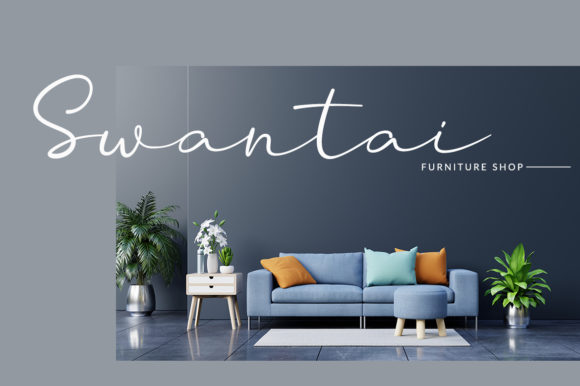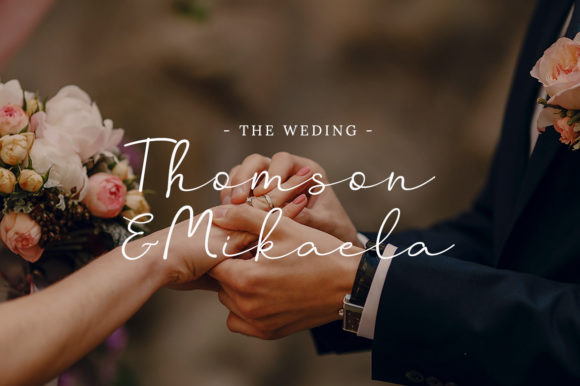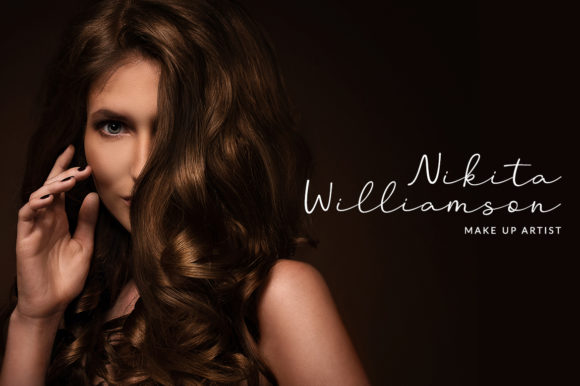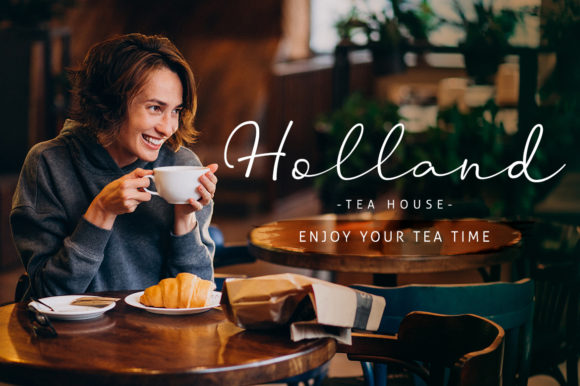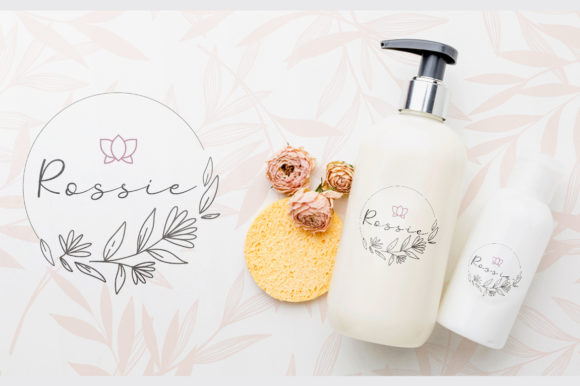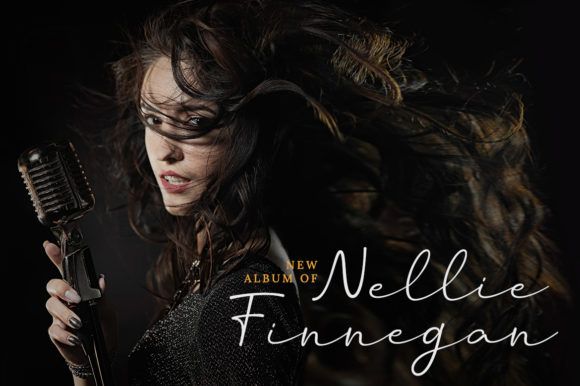
Introduction to Landsay Font
Landsay is a stylish calligraphy font, featuring a trendy touch.
It has beautiful and well balanced characters and as a result, it matches a wide pool of designs Add it to your most creative ideas and notice how it makes them come alive.
Key Features of Landsay Font